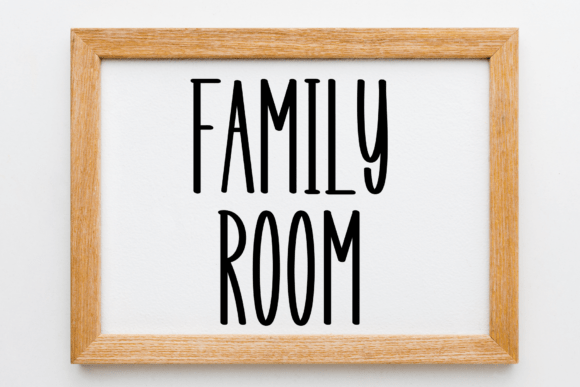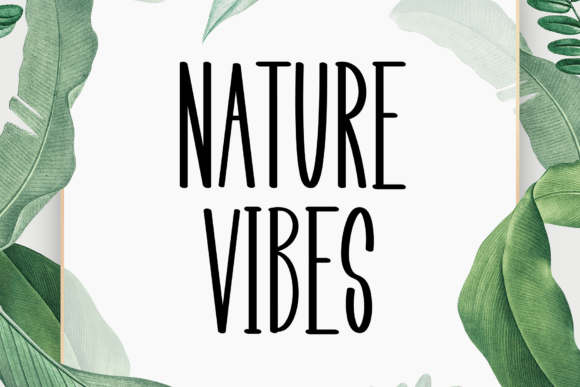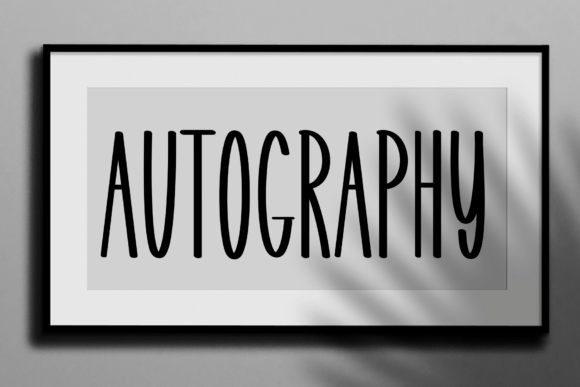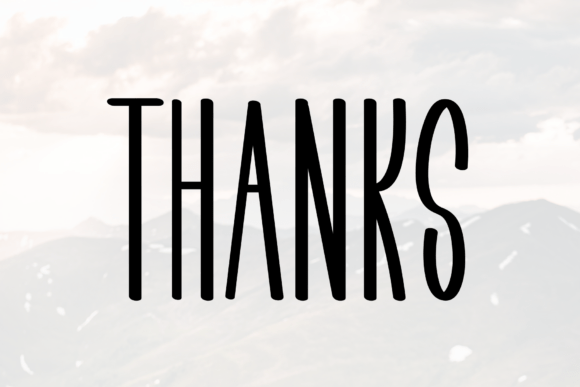
Ethereal Font: Elevate Your Designs with a Luxurious and Elegant Touch
In the world of typography, fonts play a crucial role in defining the aesthetic and tone of a design. For designers and crafters looking to add a touch of luxury and elegance to their work, the Ethereal Font is an excellent choice. This beautiful, handwritten font is designed to resemble marker-drawn text, giving it a relaxed and sporty feel that’s perfect for a wide range of applications.
What is Ethereal Font?
Ethereal is a stylish, handwritten font that exudes a sense of casual sophistication. Its unique, marker-like texture gives it a distinctive look that’s both elegant and laid-back. This versatility makes it an ideal choice for designers who want to create luxurious and refined designs without sacrificing a relaxed, approachable feel.
Characteristics of Ethereal Font
- Handwritten style: Ethereal Font boasts a beautiful, handwritten style that’s perfect for adding a personal touch to your designs.
- Marker-like texture: The font’s texture gives it a unique, organic feel that’s reminiscent of marker-drawn text.
- Relaxed and sporty feel: Ethereal Font has a laid-back, casual vibe that’s perfect for designs that require a sporty or relaxed aesthetic.
- Luxurious and elegant: Despite its casual feel, Ethereal Font is undeniably luxurious and elegant, making it perfect for high-end designs.
Use Cases for Ethereal Font
Ethereal Font is incredibly versatile, making it suitable for a wide range of design applications. Here are some of the most popular use cases:
- Branding: Use Ethereal Font to create a unique and memorable brand identity that exudes luxury and sophistication.
- Logos: The font’s elegant, handwritten style makes it perfect for logos that require a touch of refinement.
- Wedding supplies: Ethereal Font is a popular choice for wedding designs, including invitations, stationery, and decorations.
- Greeting cards: Add a touch of elegance to your greeting cards with Ethereal Font, perfect for special occasions like birthdays, anniversaries, and holidays.
- Fashion: The font’s luxurious feel makes it a great choice for fashion designs, including lookbooks, catalogs, and advertisements.
- Marketing promotions: Use Ethereal Font to create eye-catching marketing materials, such as brochures, flyers, and posters.
Tips for Using Ethereal Font
To get the most out of Ethereal Font, here are some tips to keep in mind:
- Pair with complementary fonts: Combine Ethereal Font with complementary fonts to create visual interest and hierarchy in your designs.
- Experiment with colors: The font’s elegant style looks great in a range of colors, so don’t be afraid to experiment and find the perfect hue for your design.
- Use for headlines and titles: Ethereal Font is perfect for headlines and titles, where its elegant style can make a big impact.
Ethereal Font is a beautiful, handwritten font that’s perfect for designers and crafters looking to add a touch of luxury and elegance to their work. Its unique, marker-like texture and relaxed, sporty feel make it incredibly versatile, suitable for a wide range of design applications. Whether you’re creating branding materials, logos, wedding supplies, or marketing promotions, Ethereal Font is an excellent choice.
With its elegant style and casual vibe, Ethereal Font is sure to elevate your designs and help you create stunning, high-end visuals that leave a lasting impression.